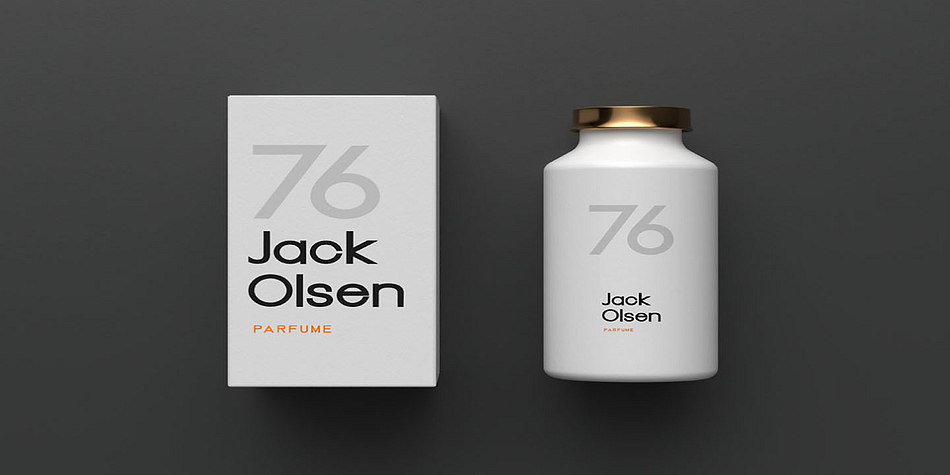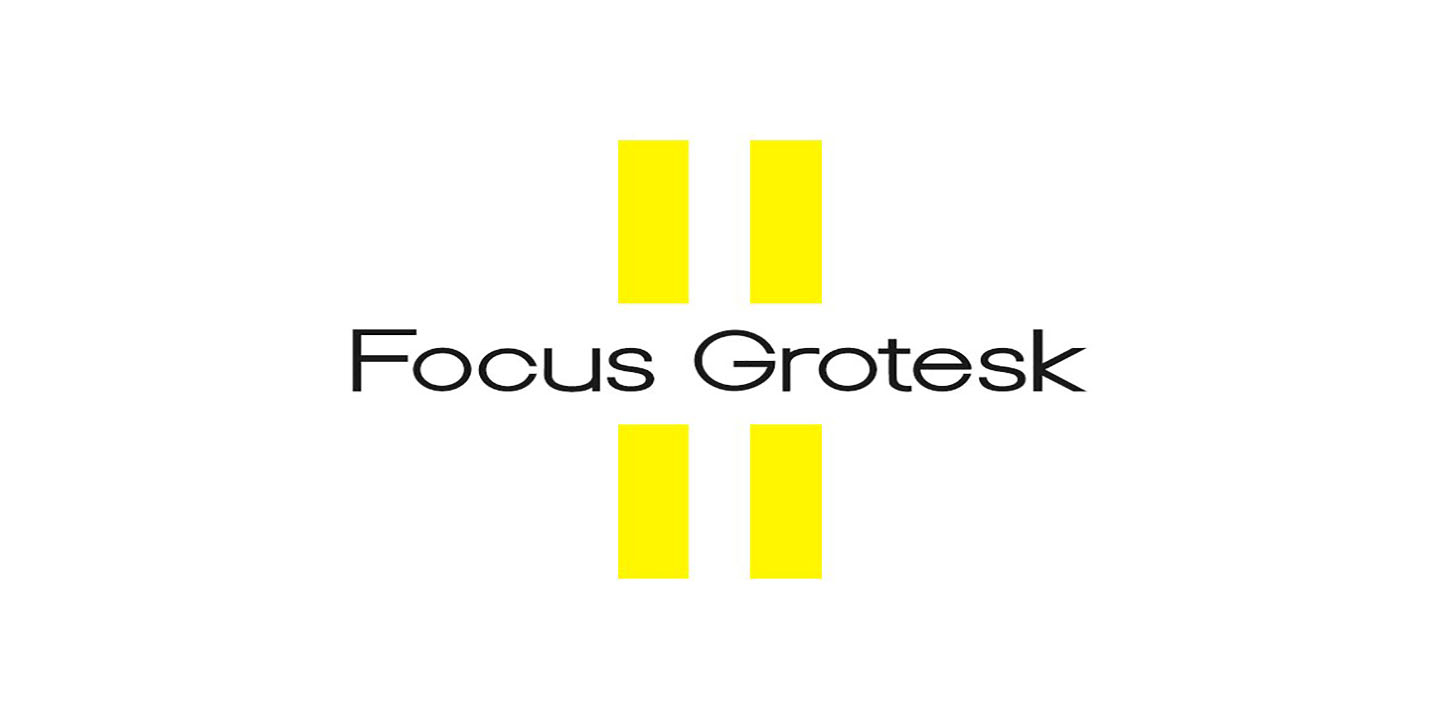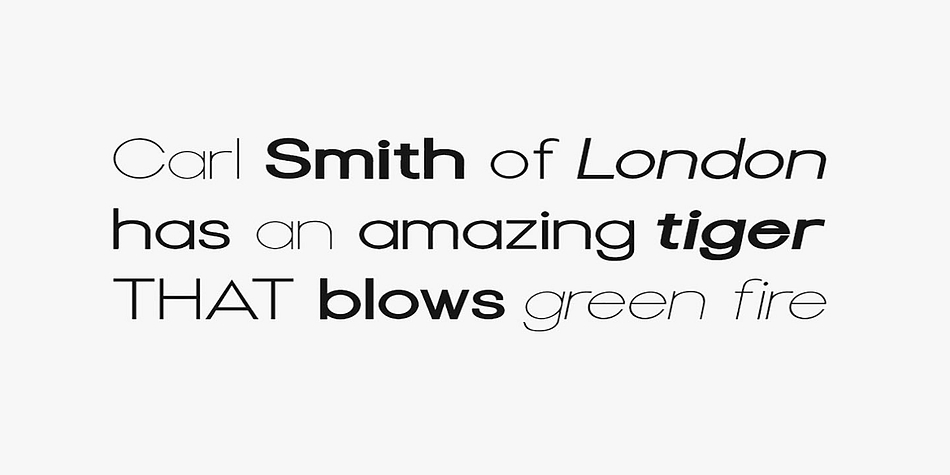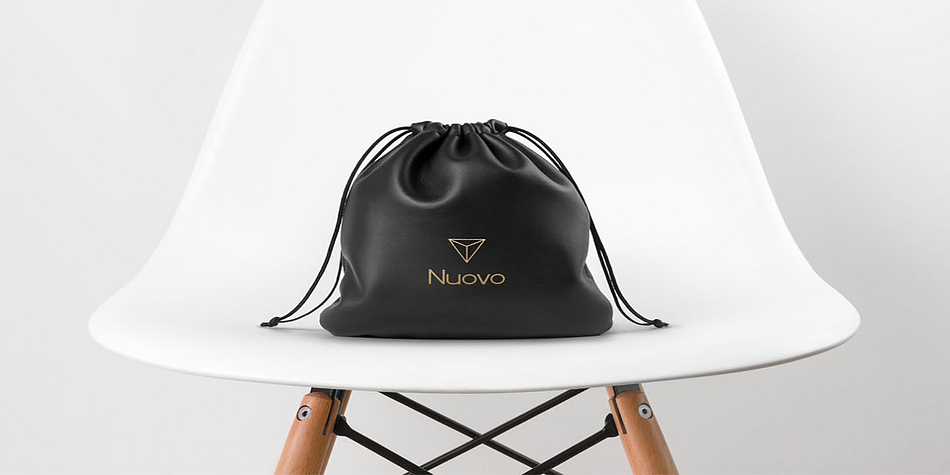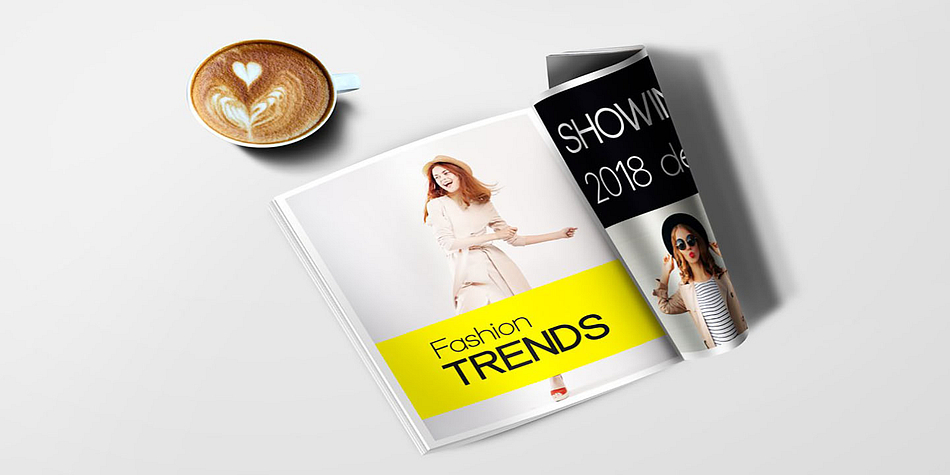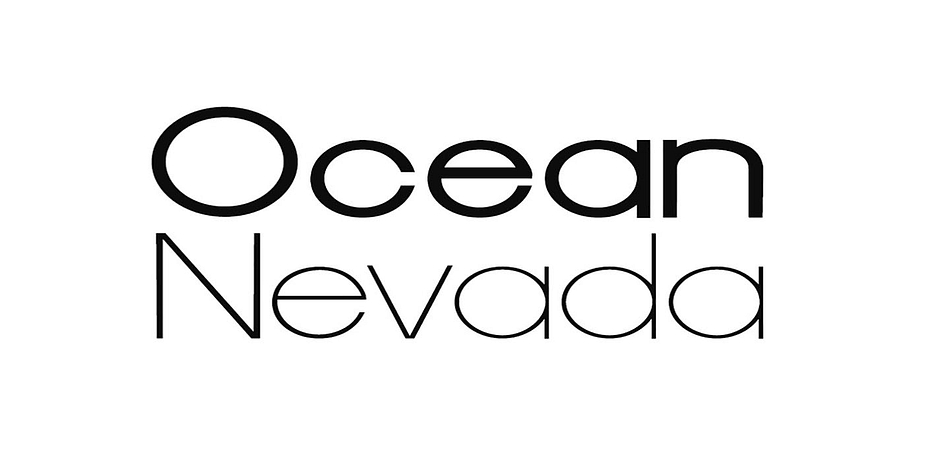
Focus Grotesk
Focus Grotesk is a sans serif font family. This typeface has ten styles and was published by Fontastica.
Focus Grotesk - An authentic geometric Sans-Serif typeface, a perfect choice for both body text and headlines. The font is great for print, web, logo design, marketing graphics and branding purposes. The typeface is designed from handmade geometrical shapes and the developers performed extensive kerning to add utmost perfection to each glyph combinations.
This typeface comes with a total of 10 fonts included in the pack:
5 Weights (Thin / Light / Regular / Bold / Heavy)
5 Weights of Italic versions (Thin / Light / Regular / Bold / Heavy)